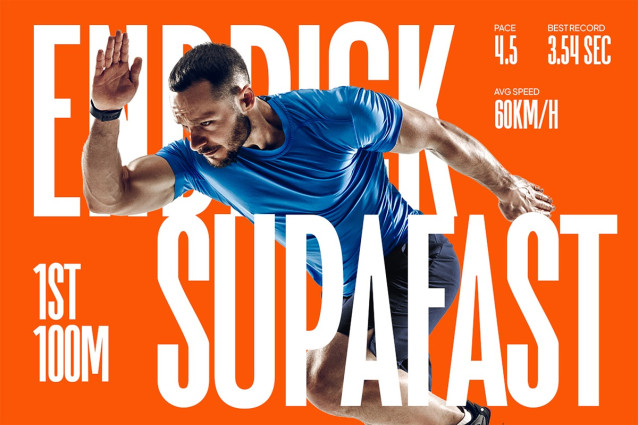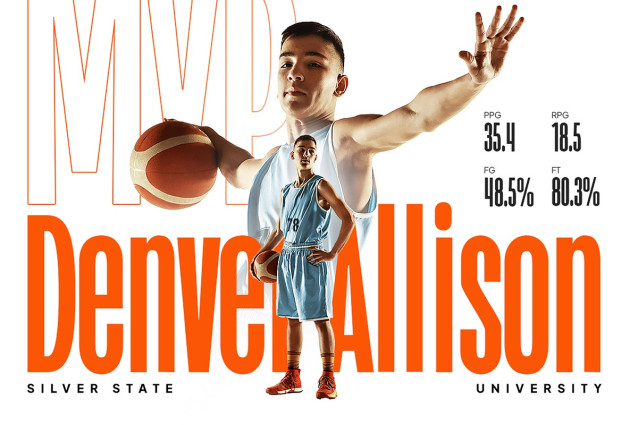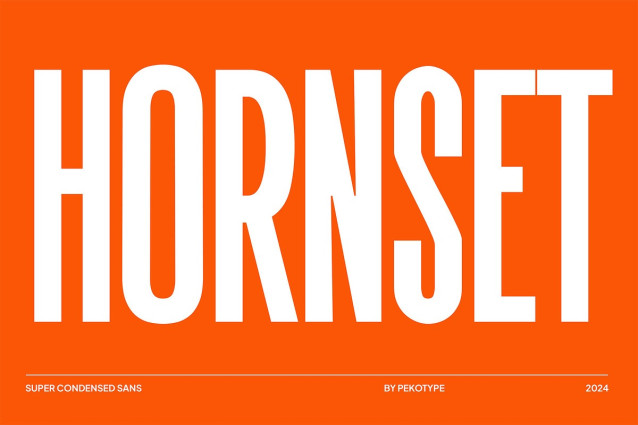
Hornset Font
Hornset Font is where modern design meets precision. This sleek, condensed sans-serif typeface is crafted to make an impact, fitting more into less without losing clarity or style. Its narrow letterforms are perfect for contemporary projects, whether you’re designing eye-catching headlines, minimalist posters, or sophisticated branding. HORNSET’s clean lines and balanced proportions make it a versatile choice for those who need a bold and refined typeface. Elevate your designs with HORNSET, the perfect blend of modernity and efficiency.